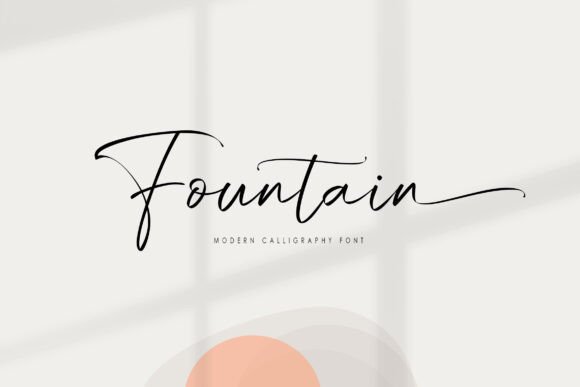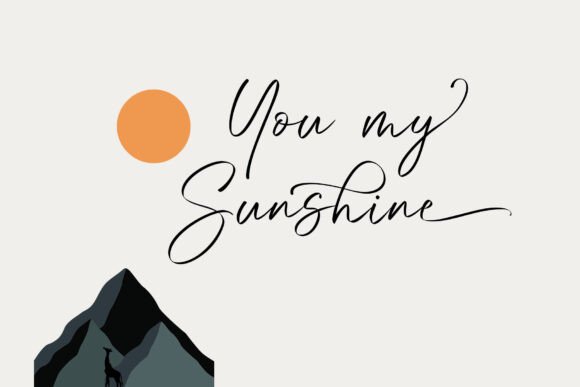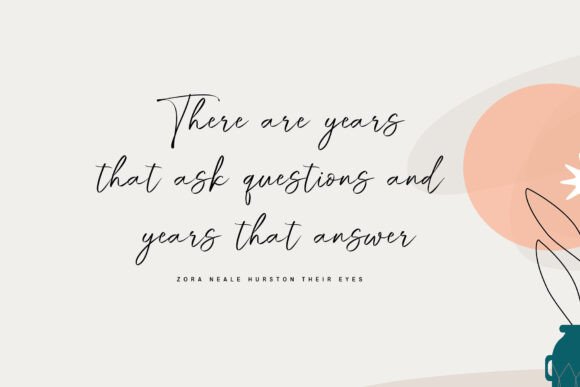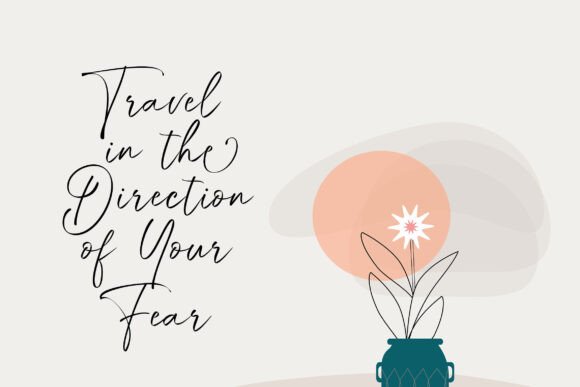
Fountain Font
About the Fountain Font
Presenting Fountain Font, a unique and stylish typeface that will make your work stand out. **Fountain** is a dazzling script font. This font is neatly crafted and highly detailed. Whatever the topic, this font will be a wonderful asset to your font library, as it has the potential to enhance any creation.
If your latest project needs a bit of an elegant touch, it’s time to introduce Fountain to your font library. This stylish typeface features OpenType features such as ligatures, stylistic alternatives, style sets.
Fountain’s elegant flourish makes it ideal for headlines, short text blocks on invitations or certificates, and logos requiring a touch of sophistication. It excels in branding projects for luxury goods, boutique hotels, or high-end events. However, its intricate details make it unsuitable for body text or UI elements; readability suffers at smaller sizes and in continuous paragraphs.
Pairing Fountain with a clean sans-serif like Helvetica Neue for body copy creates a strong contrast and visual hierarchy. For a warmer feel, consider pairing it with a serif like Garamond for supporting text. Alternatively, a geometric sans-serif such as Futura can provide a modern counterpoint to Fountain’s more traditional script style.
Fountain projects an air of refined elegance and understated luxury. Its personality is sophisticated but not overly fussy, lending itself to brands that value quality and craftsmanship.